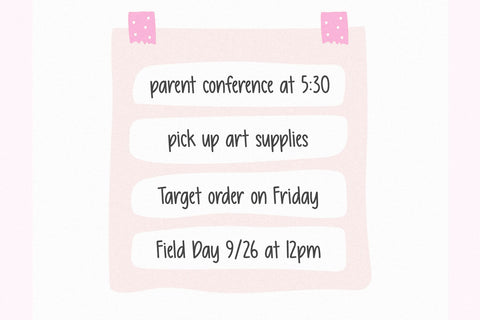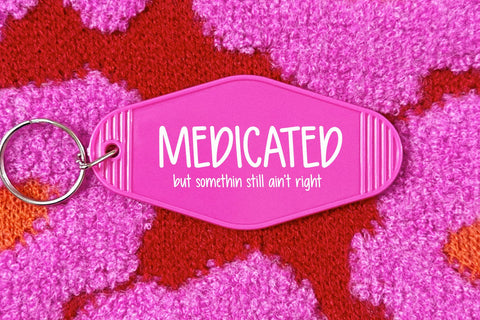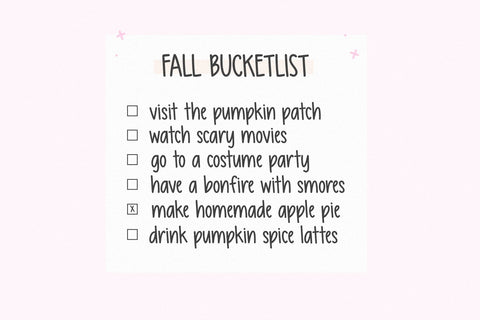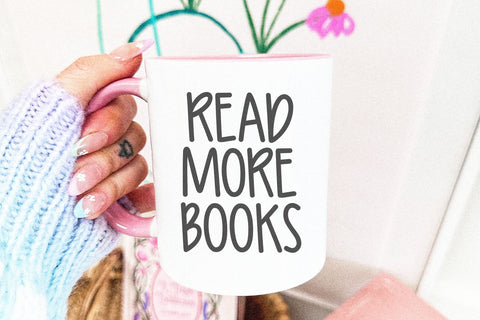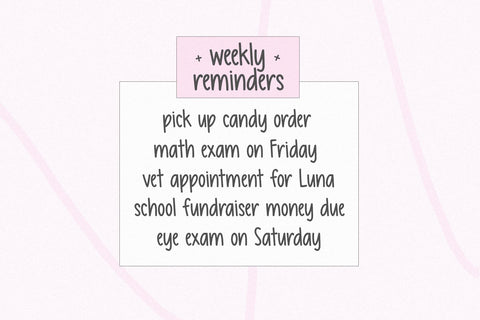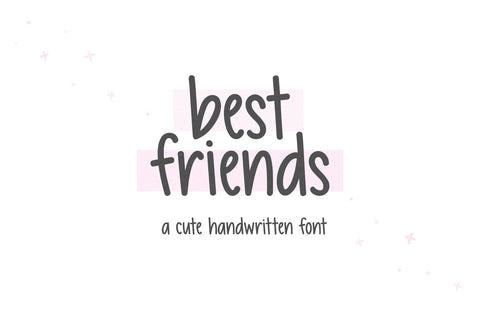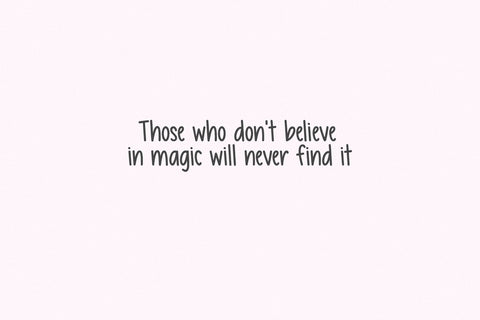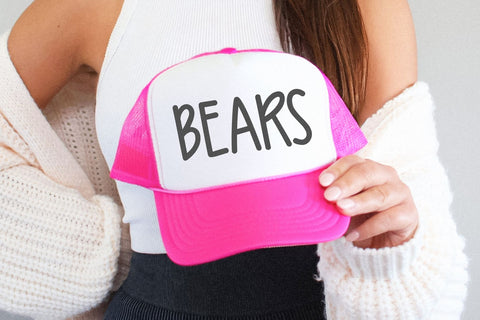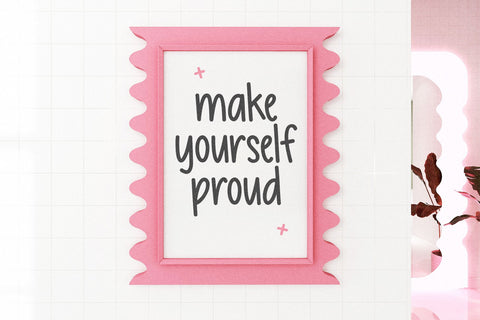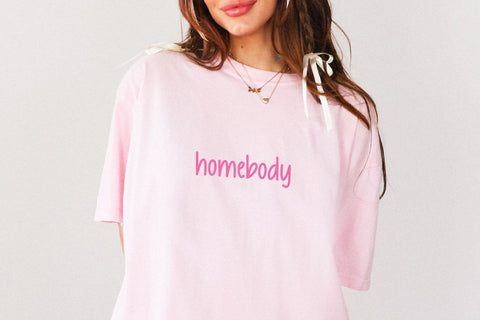
Best Friends - Cute Handwritten Font
Best Friends is a cute handwritten font.
This font is perfect for cricut projects, teachers, goodnotes, planners, stickers, quotes and more!